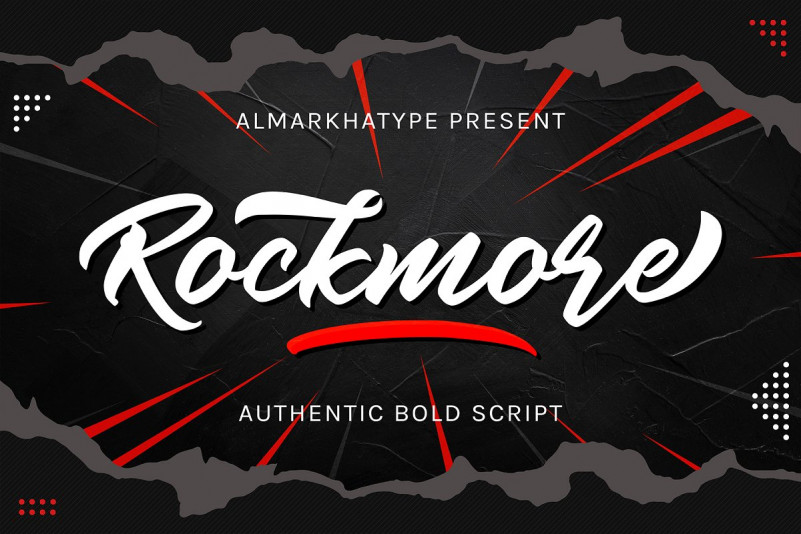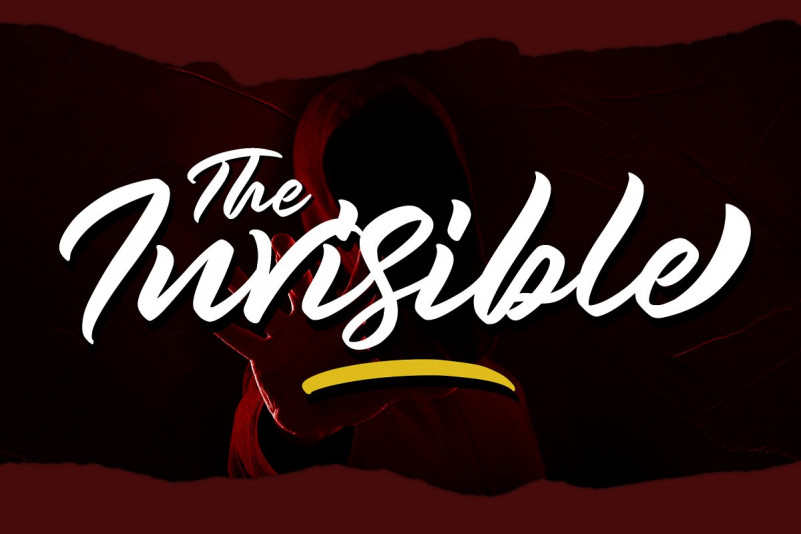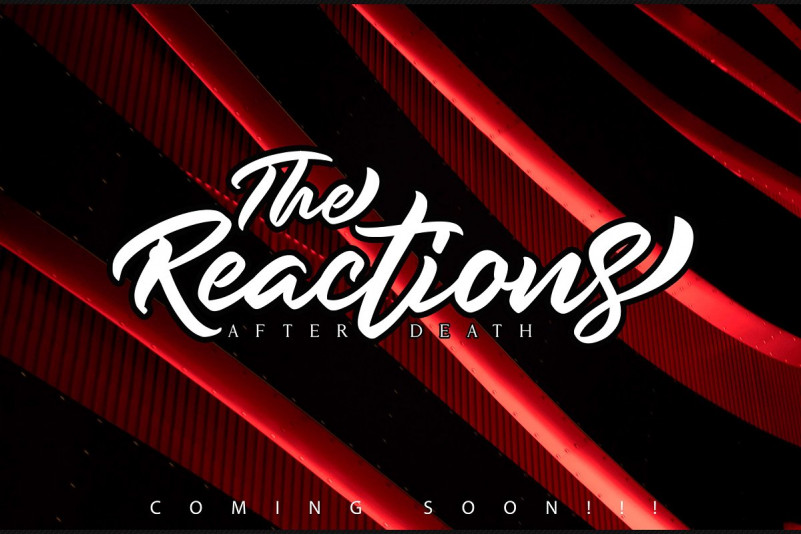
Rockmore Font
Rockmore FontRockmore is a bold script font with a clear style and dramatic movement this font is great for your next creative project such as logos, printed quotes, invitations, cards, product packaging, headers, Logotype, Letterhead, Poster, Apparel Design, Label, and etc.